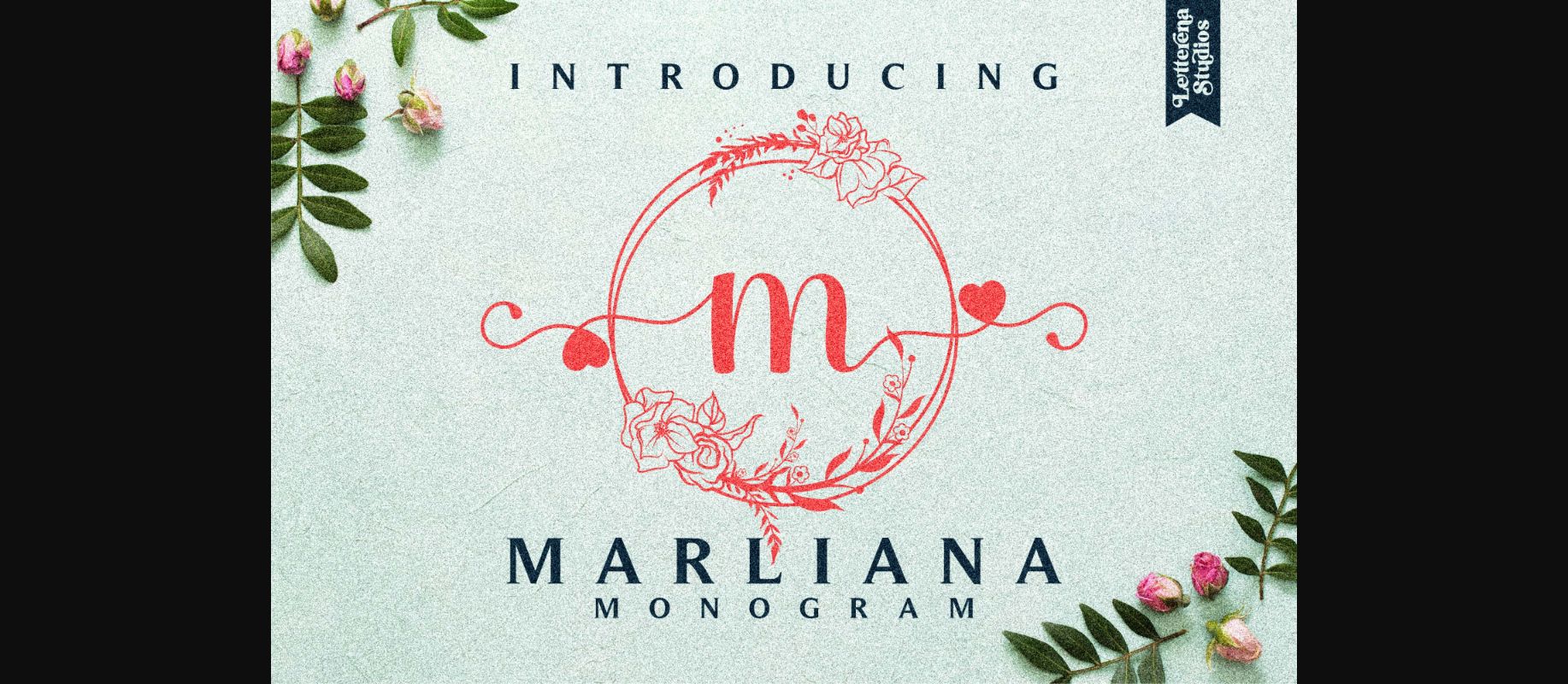
About Marliana Monogram Font
Marliana Monogram is an elegant decorative font, featuring luxury leaf ornaments. Fall in love with its authentic feel and use it to create gorgeous wedding invitations, beautiful stationary art, eye-catching social media posts, logo design, and cute greeting cards.